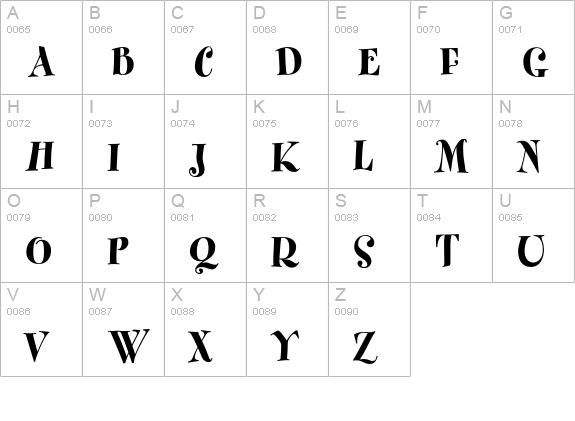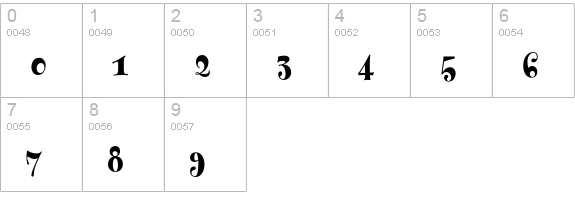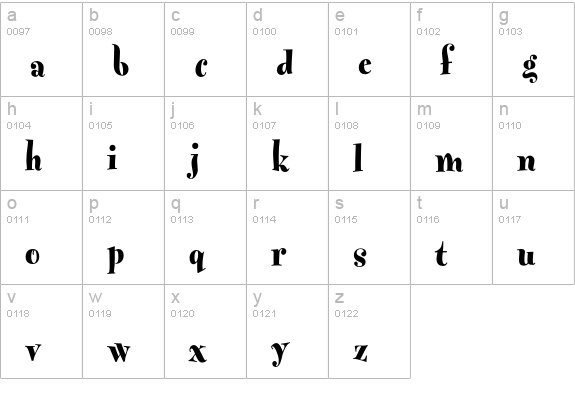
Fontesque-ExtraBold is an extra-heavy, attention-grabbing variant in the Fontesque typeface family \xE2\x80\x94 well suited to high-impact headlines, posters, and bold branding.
Fontesque-ExtraBold is a striking and powerful typeface that commands attention with its bold presence. Its strong, thick strokes exude confidence and authority, making it perfect for headlines, titles, and branding projects. The font's robust design ensures that your message will stand out and make a lasting impact on your audience. What sets Fontesque-ExtraBold apart is not just its bold aesthetics, but also the fact that it is available for free download at FontsMarket.com. This means that you can easily access this impressive font without any cost, making it a valuable addition to your design toolkit. Whether you're working on a poster, website, or any other creative project, Fontesque-ExtraBold will elevate your design with its bold and dynamic style. Don't miss out on this opportunity to enhance your design projects with Fontesque-ExtraBold. Download it for free at FontsMarket.com and unleash the power of bold typography in your work.